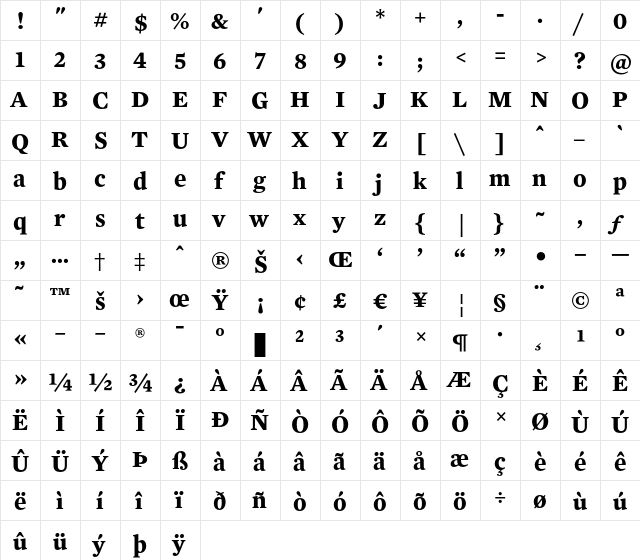
Mercury Text G2 Bold
Design Context for Mercury Text G2 Typeface
Mercury Text G2 is a composed and adaptable typeface that performs quietly and consistently across a wide range of design contexts. The heavy weight commands attention and anchors typographic hierarchies.